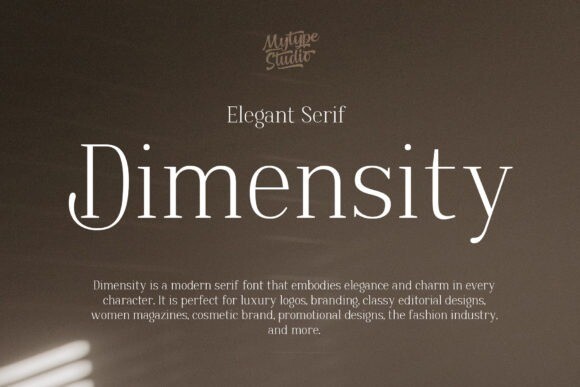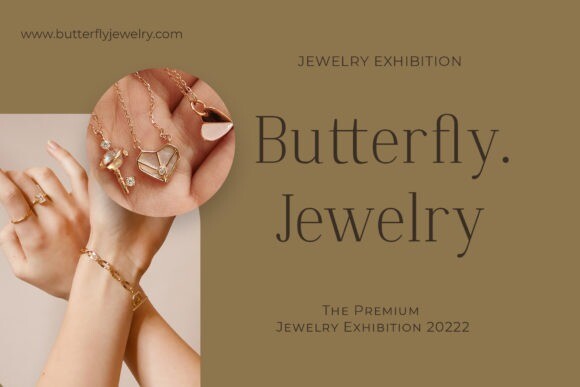
Dimensity Font
Dimensity is a modern serif font that embodies elegance and charm in every character. It is perfect for luxury logos, branding, classy editorial designs, women magazines, cosmetic brand, promotional designs, the fashion industry, and more.
This gorgeous font includes all lowercase and uppercase characters, numbers, punctuation, an array of standard ligatures and a selection of international characters as well.